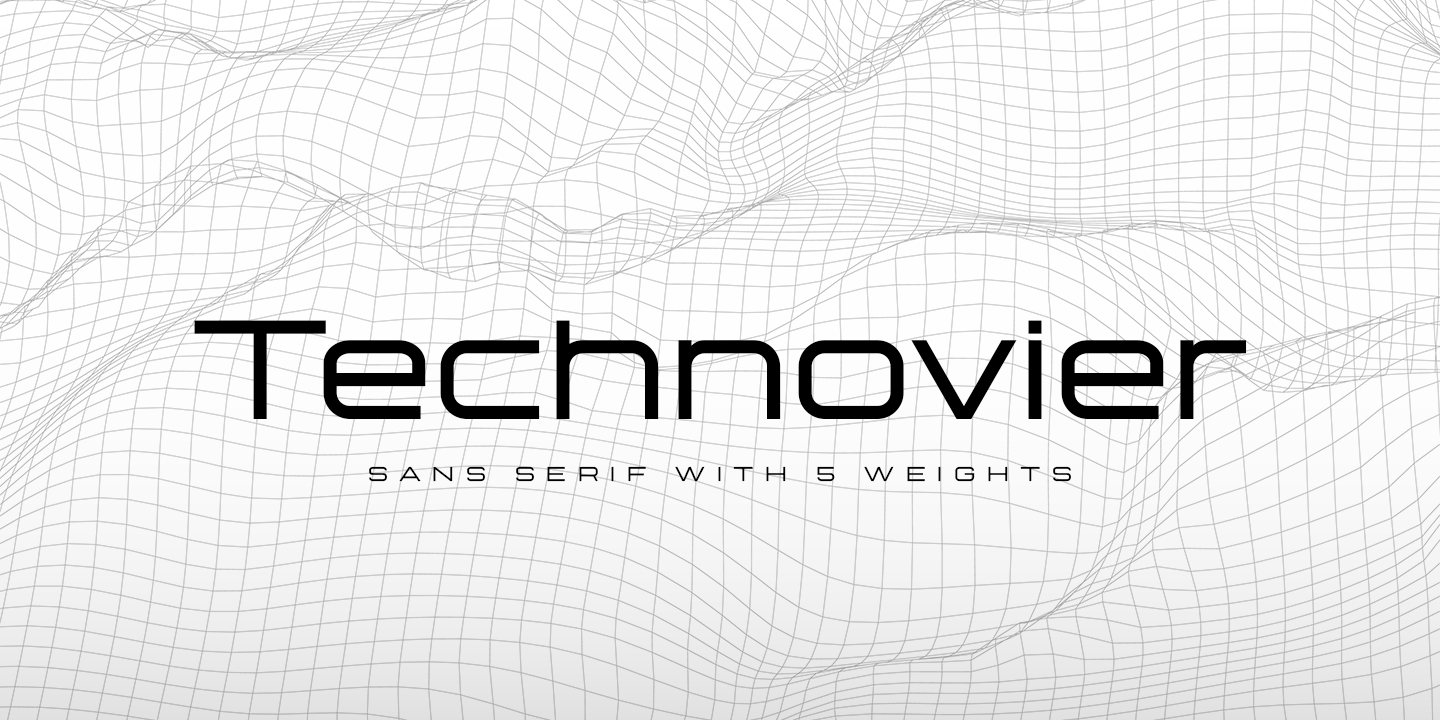
Technovier Font is ideal for cutting-edge technology logos, futuristic app interfaces, AI company branding, robotics industry signage, tech startup presentations, and next-generation product packaging.
Technovier Font is exciting because it embodies the revolutionary spirit and technological sophistication of tomorrow's innovations, delivering a visionary typeface that captures digital transformation, artificial intelligence, and the limitless potential of future technology.
The Technovier Font family includes advanced variations: Technovier Light, Technovier Regular, Technovier Bold, Technovier Black, digital alternates, and sci-fi decorative elements that enhance the font's futuristic character.
Pioneer the future with Technovier Font Free Download, a revolutionarily designed typeface that brings next-generation technology and futuristic innovation to your most groundbreaking design projects. This visionary font excels in creating memorable branding for quantum computing companies, space technology firms, biotech research laboratories, and advanced manufacturing organizations that push the boundaries of human knowledge and technological capability. The precisely engineered letterforms feature sleek geometric construction with cutting-edge details that communicate innovation, precision, and technological superiority while ensuring crystal-clear readability across all digital and scientific applications. Perfect for tech conference materials, scientific research publications, venture capital presentations, and breakthrough product launches that need to convey revolutionary thinking and technological leadership, this font connects with innovators who shape humanity's technological destiny. Each character processes with algorithmic precision, making every tech communication feel like a glimpse into the extraordinary future we're building together. Technovier Font transforms technological communications into inspiring visions that motivate brilliant minds to continue pushing the boundaries of what's possible through science and innovation.